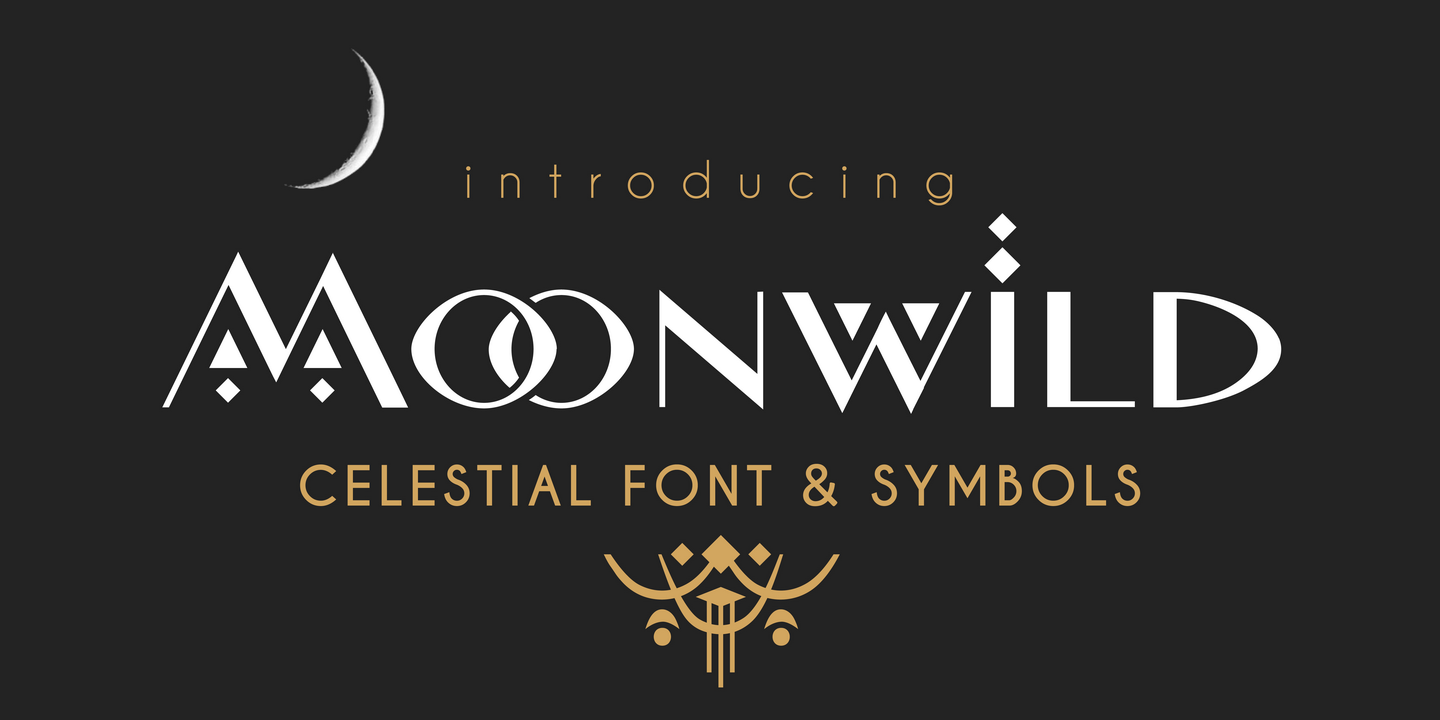
The Moonwild Decorative Font is perfect for various design applications including mystical branding projects, bohemian fashion logos, lunar ceremony invitations, spiritual wellness graphics, celestial jewelry packaging, witchcraft-themed materials, moonlight festival promotions, and enchanted nature designs. This magical typeface works exceptionally well for brands celebrating lunar energy and projects requiring mystical charm with wild celestial appeal.
What makes Moonwild Decorative Font exciting is its mystical and untamed character that instantly captures the wild beauty of moonlit nights and the enchanting power of lunar magic. The font features ornate letterforms with celestial curves and mystical aesthetics that evoke feelings of mystery, freedom, and spiritual connection to nature. Its wild styling and moon-inspired appearance make it perfect for brands that want to embody natural magic and connect with audiences who appreciate mystical experiences and lunar spirituality.
The Moonwild Decorative Font family includes multiple weights and styles, offering designers flexibility for diverse mystical applications. The family typically consists of regular, bold, ornate, and decorative variations, along with lunar-inspired elements and celestial ornaments, providing comprehensive coverage for projects that need both spiritual depth and visual enchantment across different mystical contexts.
Whether you're working on spiritual wellness brands, bohemian lifestyle products, or celestial-themed campaigns, Moonwild Decorative Font Free Download delivers the enchanting quality and visual magic that modern mystical designers desire. The font's moon-wild design combined with its excellent readability makes it an essential tool for creating compelling visual communications that celebrate lunar energy and bring the untamed spirit of moonlit enchantment to life.